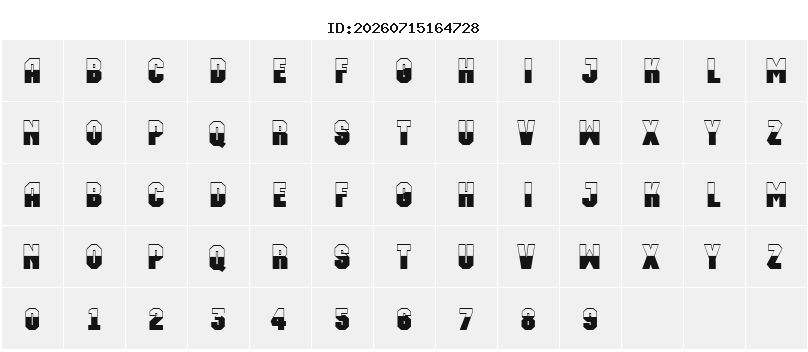
a_MachinaOrtoB&W Preview
• Font Name: a_MachinaOrtoB&W
• Full Font Name: a_MachinaOrtoB&W
About a_MachinaOrtoB&W.ttf
a_MachinaOrtoB&W.ttf is a modern, elegant sans-serif font designed for ultimate readability and visual harmony. Perfect for branding, headlines, web design, and print materials.